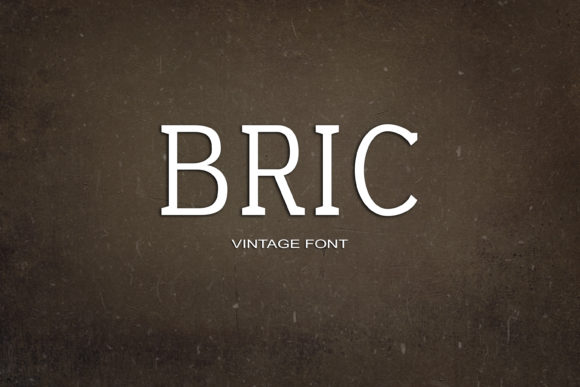
Step into the world of Bric Font, where the charm of classic serif meets the vibrancy of modernity. This typeface, designed by the esteemed DmDesignsStoreArt, is meticulously crafted to render your projects with an air of timeless elegance and contemporary flair.
Indulge in Bric's graceful curves, each stroke whispering a tale of sophistication. Its versatile nature empowers you to effortlessly enhance everything from logos and branding to print materials and digital creations. With Bric, your artistic expressions will radiate an enchanting allure that captivates every eye.
Whether you seek to evoke a sense of nostalgia or embrace the allure of the modern, Bric flawlessly molds itself to your vision. Its timeless aesthetic transcends trends, ensuring your designs exude a lasting appeal. Embrace the charm of Bric and let its strokes paint a captivating tapestry of visual delights.